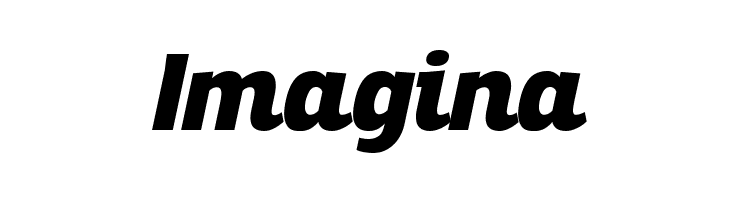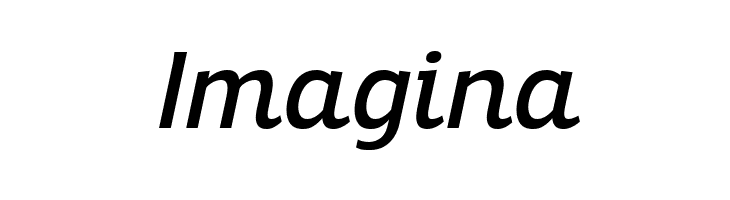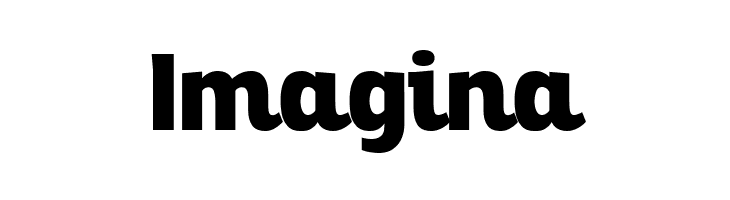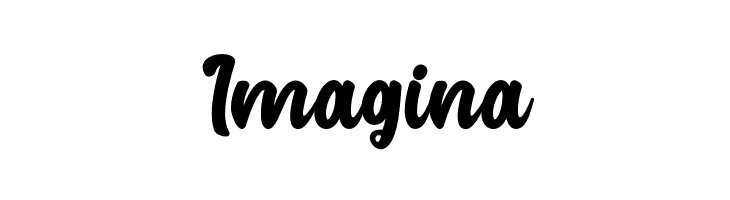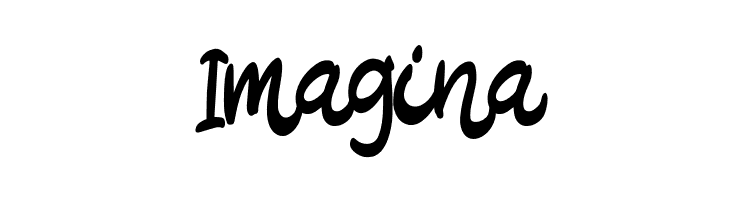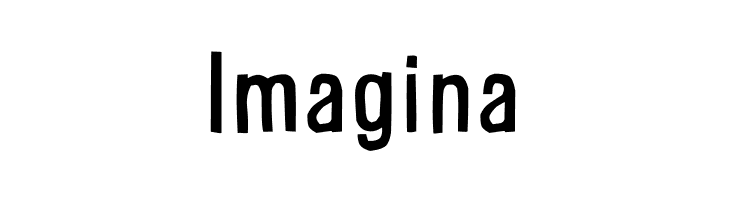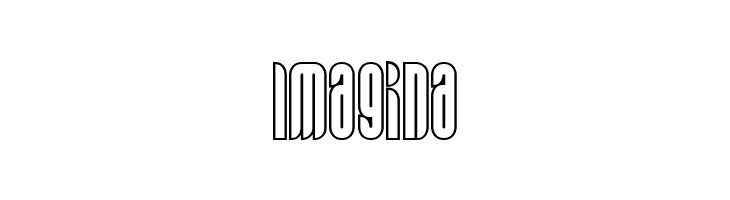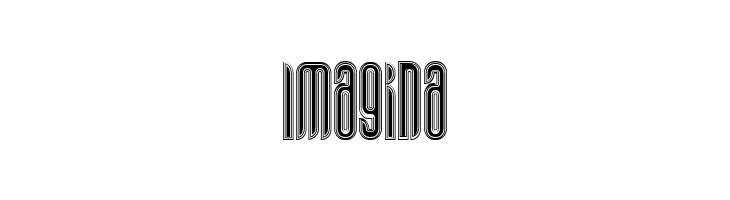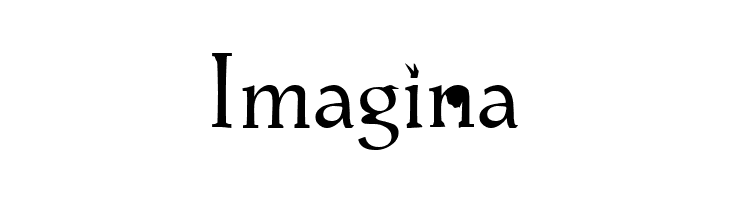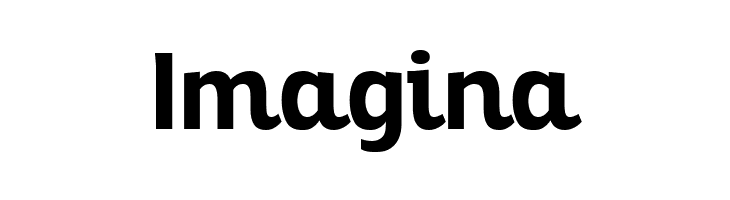
A bold, blackletter-style font with sharp angles and dramatic strokes.
A playful, casual handwritten font with smooth, flowing lines.
A lively, flowing script font with elegant, cursive letterforms.
Playful, handwritten font with tall, narrow characters.
A bold, hand-drawn script font with a playful and artistic style.
A clean, modern sans-serif font with excellent readability and uniform stroke widths.
A playful, bold font with rounded, bubble-like characters.
A modern, elongated font with narrow characters and a sleek design.
A modern, narrow, and slightly italic font with a retro touch.
A bold, hand-drawn font with a raw, edgy style.
A scratchy, hand-drawn font with a rebellious and edgy style.
A bold, decorative font with a 3D shadow effect, perfect for eye-catching designs.
A bold, three-dimensional font with a modern geometric style.
A playful, handwritten font with a whimsical and friendly style.
A bold, flowing script font with a playful and dynamic style.
A dynamic and expressive handwritten font with fluid, cursive letterforms.
A bold, flowing script font with a handwritten, interconnected style.
A bold, cursive font with a playful and energetic handwritten style.
An artistic serif font with sharp, angular serifs and a hand-crafted appearance.
A bold, hand-drawn font with rough, edgy strokes and dynamic energy.
A bold, modern sans-serif font with clean lines and uniform stroke width.
A bold and italicized font with a modern, dynamic style.
A bold, modern font with clean lines and rounded edges, perfect for impactful designs.
A bold, italic typeface with a modern and dynamic style.
A bold and heavy typeface with strong, impactful strokes and rounded edges.
A bold, italic font with a dynamic and modern style.
A sleek, modern italic font with smooth, flowing lines and a dynamic slant.